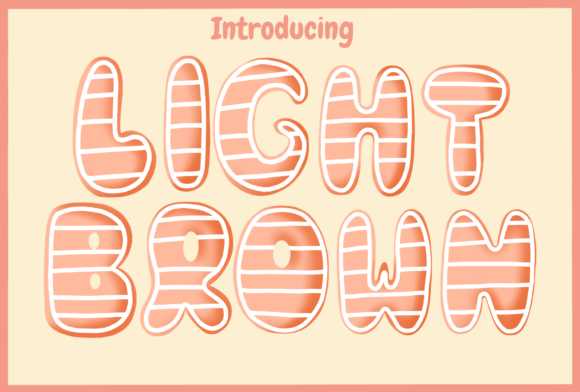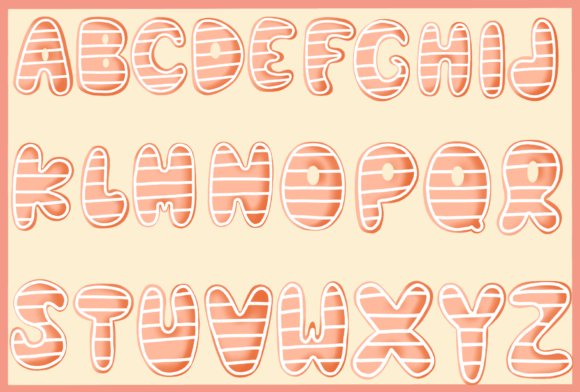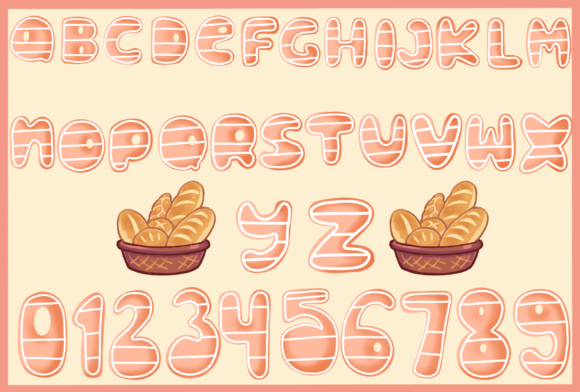
Introduction to Light Brown Font
With this font, your messages will become really super cute.
This font is perfect for posters, greeting cards, t-shirts, branding materials, quotes, and any other amazing projects you are working on .
Light Brown Font offers exceptional quality and versatility, making it a valuable addition to your design toolkit. Whether you’re creating for personal projects or commercial use, Light Brown Font delivers professional results.